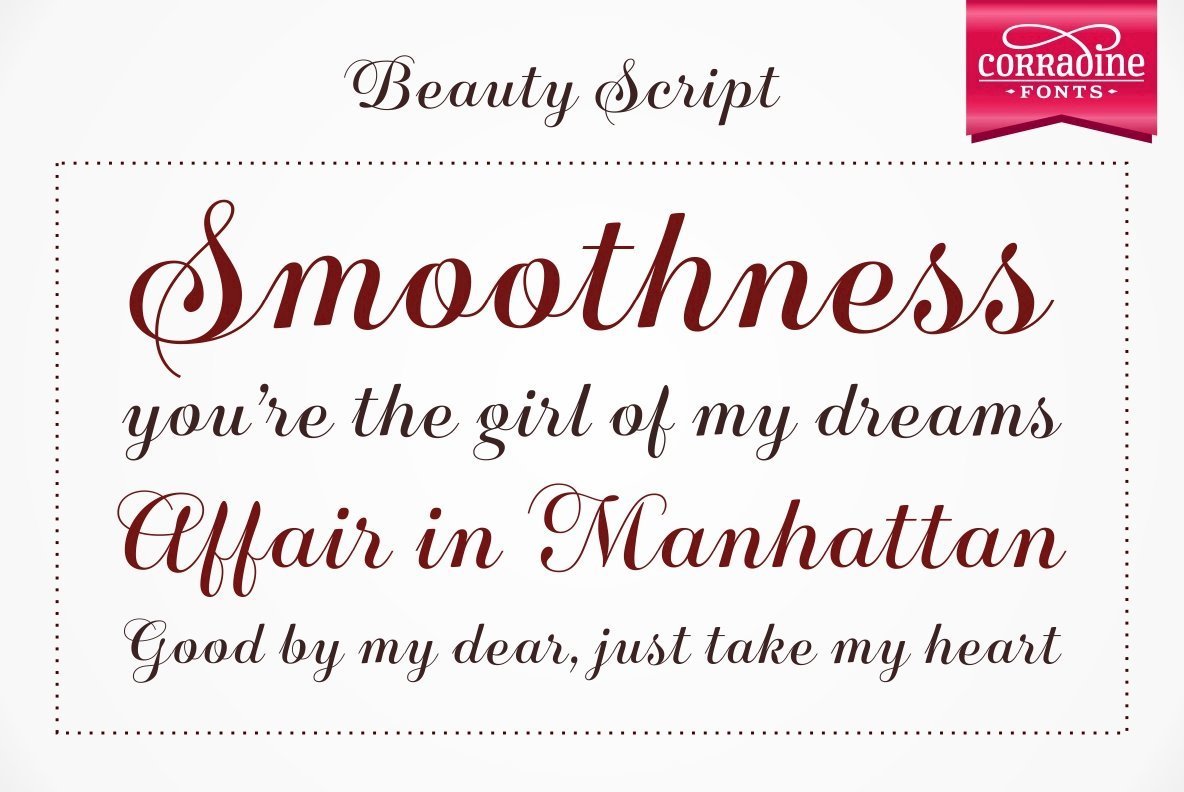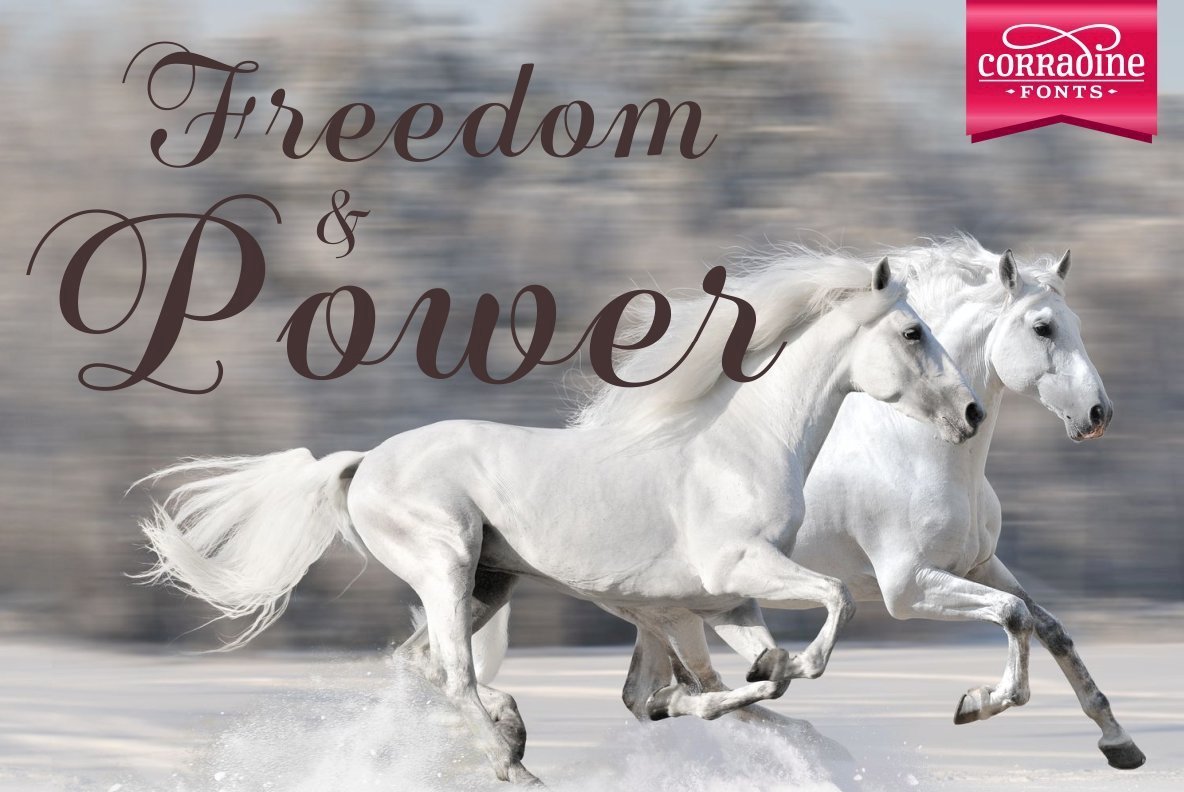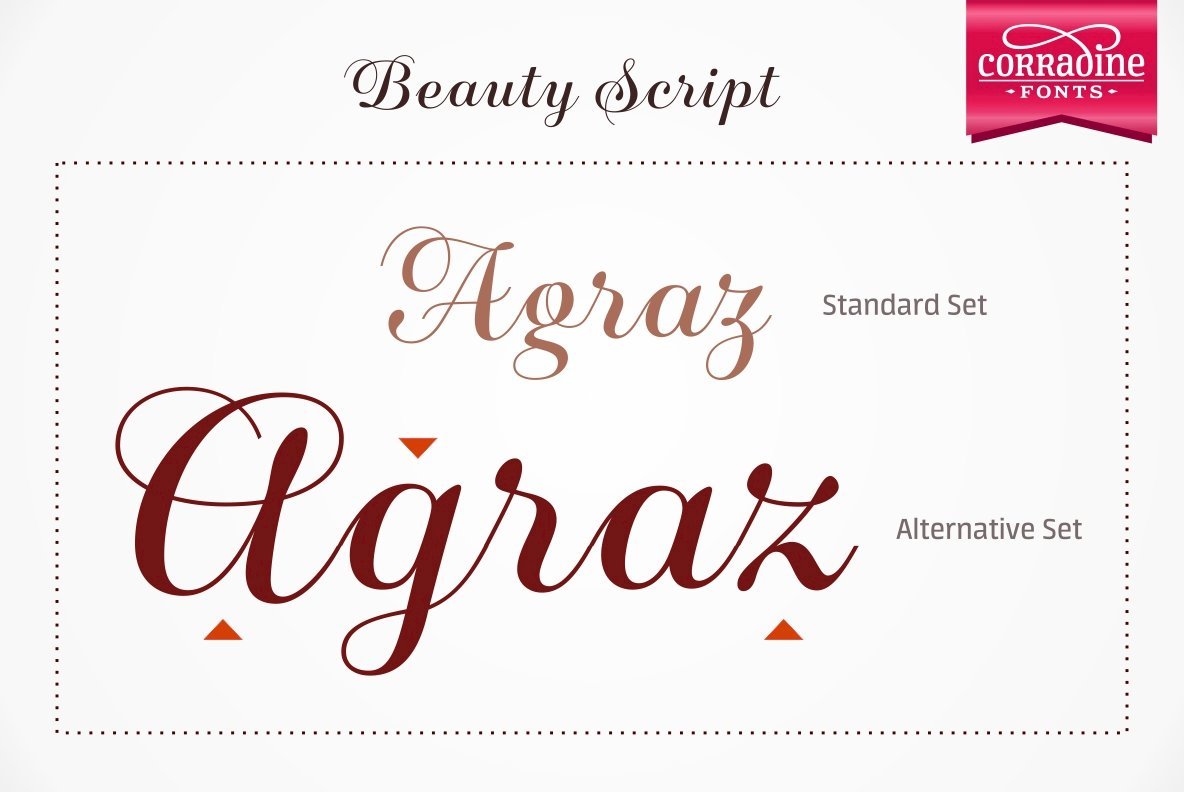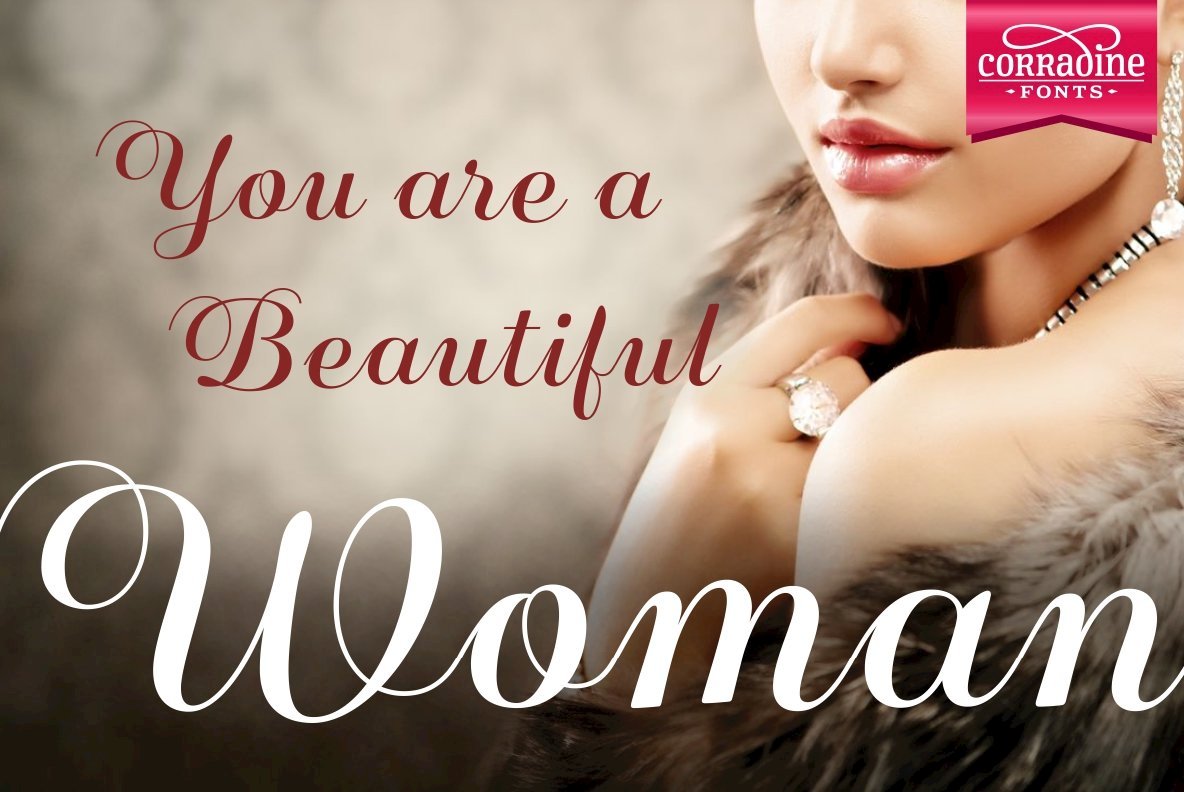
Beauty Script Font
Beauty Script
Beauty Script is a modern interpretation of the classic formal script style. You could notice in it a special feeling due its subtle wavy rhythm to mimic the natural movement of handwritten calligraphy.
Because its strong contrast and the fluidity of its traces Beauty Script is ideal to be used as headline in any media related to fashion, beauty, nature, food, pleasure, travel, luxury or wherever you required to express formality and elegance.